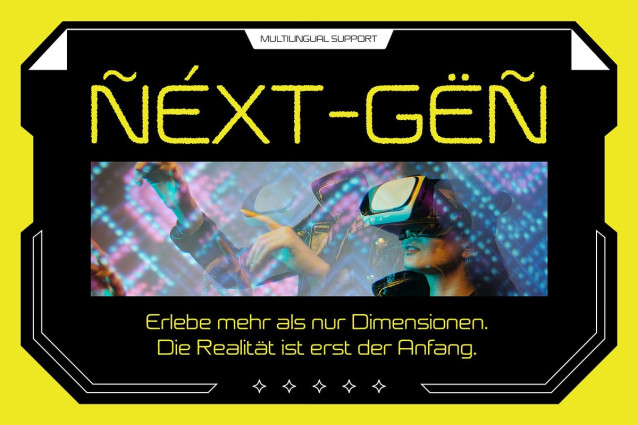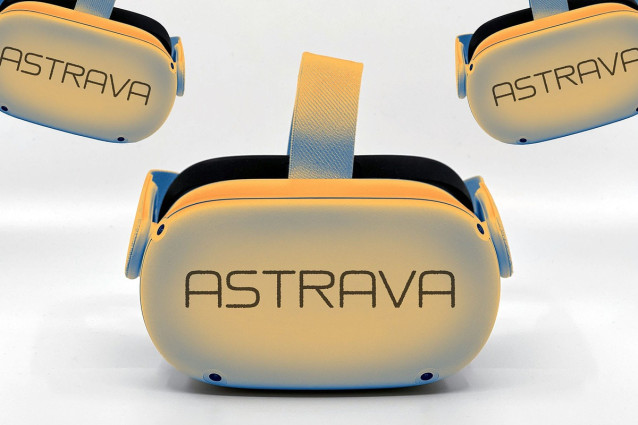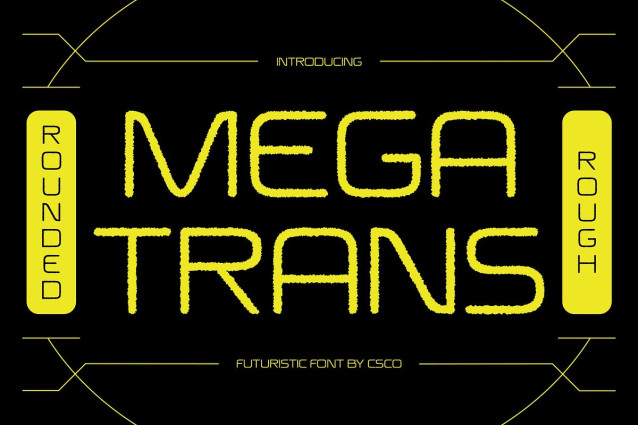
Megatrans Rounded Rough Font
Megatrans Rounded Rough Font – This is a modern sans serif font that fuses futuristic geometry with rounded forms, creating a sleek yet approachable aesthetic. Its clean lines and structured layout reflect advanced design thinking, while the softened curves introduce warmth and accessibility.
Geometric and Contemporary Appeal Rooted in geometric precision, the font delivers a balanced, organized appearance perfect for tech-driven or digital projects. The contemporary styling ensures it stays on trend, making it suitable for modern branding and visual storytelling across various platforms.
Rough Texture for Organic Contrast What sets this modern sans serif font apart is its textured, rough overlay. This handcrafted effect adds grit and character to the otherwise polished shapes, resulting in a visually engaging contrast. It injects depth and an artisanal feel, transforming sterile modernism into something more expressive and tactile.
Ideal for Creative, Tech, and Music Visuals Perfect for tech branding, electronic music posters, or digital designs that need to balance innovation with personality, this futuristic font offers a bold, creative solution. It’s a font that speaks to both progress and authenticity—sleek, stylish, and slightly rebellious.